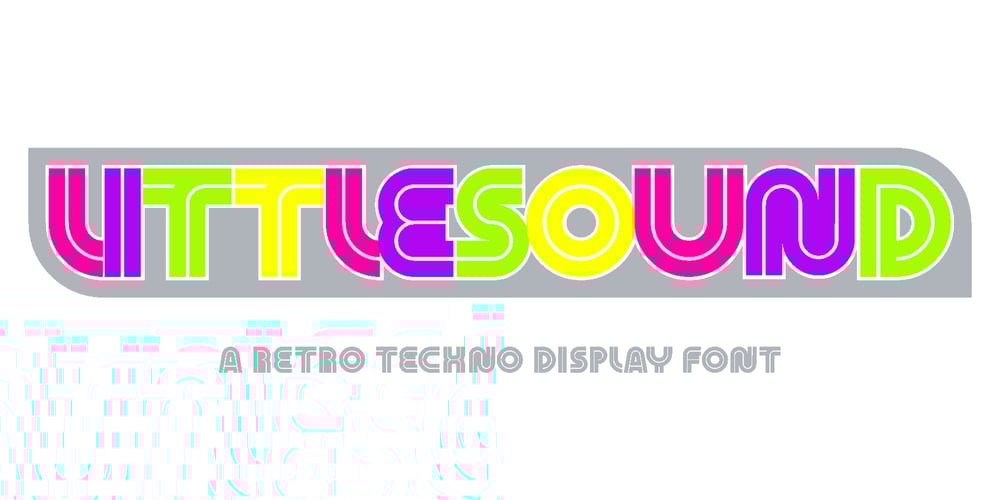
Little Sound
Little Sound Font Family was designed by Muhammad Jauhar Azmi and published by Brainware Graphic. Little Sound contains 1 styles and family package options. Little Sound is a retro techno geometrical futuristic display font inspired by a music composing software for a game console in their era.